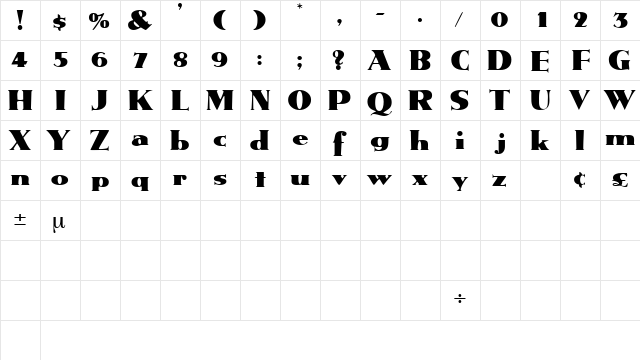
TatioDisplaySSK Regular
Design Context for TatioDisplaySSK Typeface
TatioDisplaySSK brings ornamental detail and strong personality to headlines and identities, where visual impact matters more than quiet functionality.
Font Pairing: Pair with a clean neutral sans-serif for body copy to let TatioDisplaySSK's character lead without overwhelming the composition.
Pro Tip: Treat TatioDisplaySSK as the centrepiece of your typographic hierarchy. One strong heading set in a decorative face can carry an entire layout.